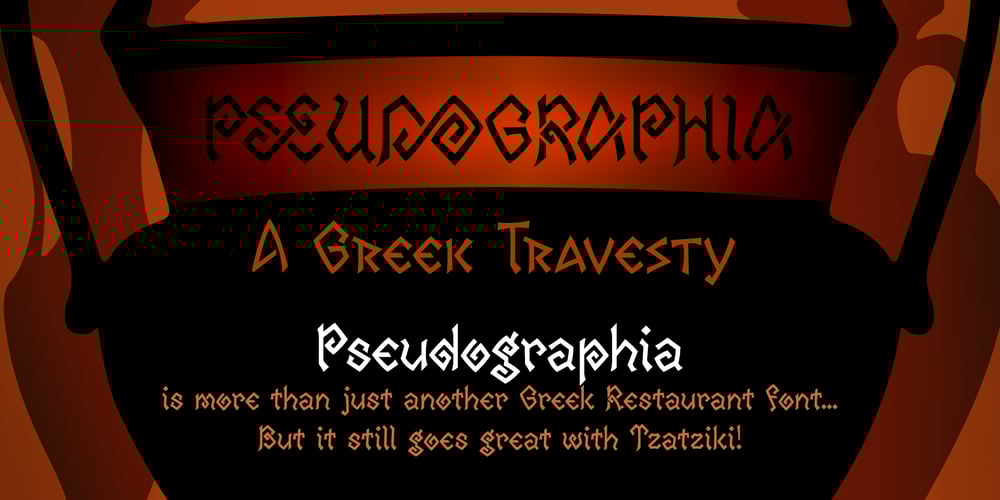
Pseudographia Font Family was designed by DC Scarpelli and published by The Ampersand Forest. Pseudographia contains 1 styles and family package options. Pseudographia is a lighthearted, loving pastiche of “Greek-Style” type inspired by J.M. Bergling’s 1917 “Society Greek” lettering. Happily living in the world of kitschy cross-cultural fonts of the kind found on restaurant awnings around the US, Pseudos is blithely unconcerned with legibility. Instead, it embraces its own benign exoticism and revels in its own chicanery!Pseudographia’s standard letterforms are angular Roman forms. Its Stylistic Set One contains a simplified Small Caps version of the kind commonly seen at Mediterranean eateries. Its Stylistic Set Two contains a full set of outlined Ornamental caps. Opa!Part of The Ampersand Forest’s Sondheim Series.